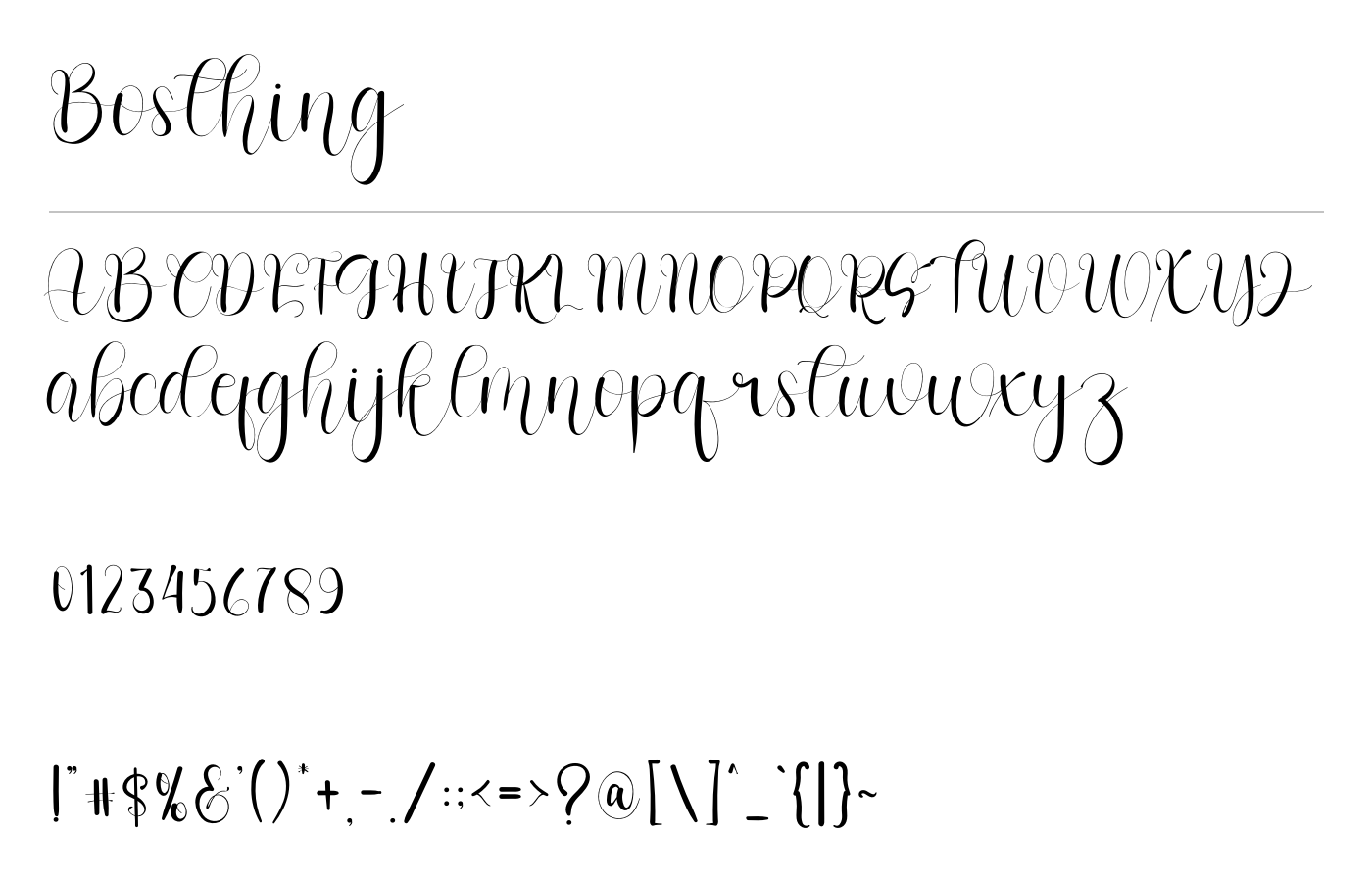
Bosthing Font is a delicate and elegant script typeface featuring flowing, slender letterforms with graceful swashes that give it a sophisticated, hand-lettered feel. Its high contrast between thin and thicker strokes, along with flourish details, makes it perfect for upscale branding, invitations, and feminine design projects where a stylish, refined touch is desired. This font works beautifully in headlines and logos, adding a personal and artistic flair that draws attention without overwhelming.
Bosthing Font
About Bosthing Font